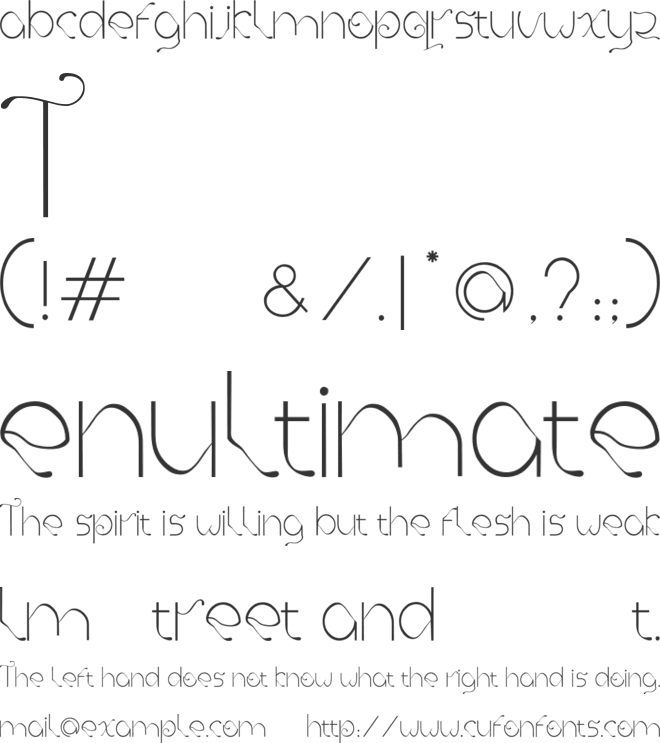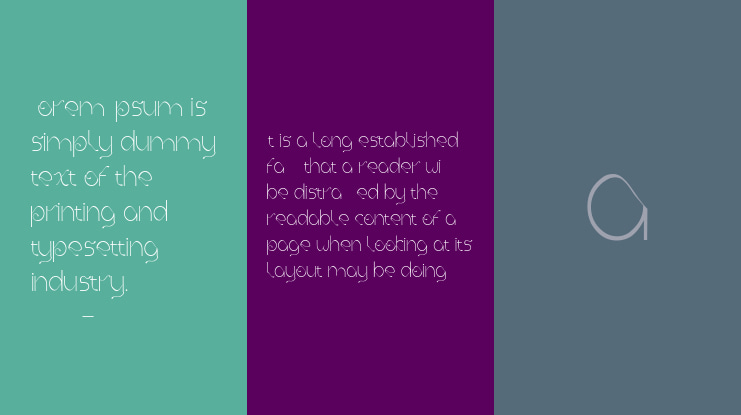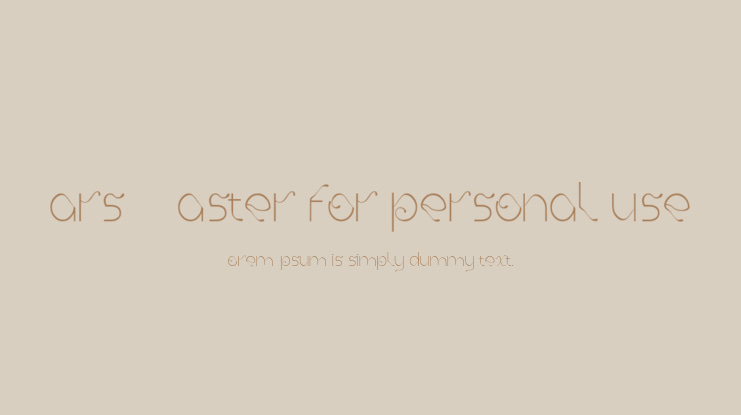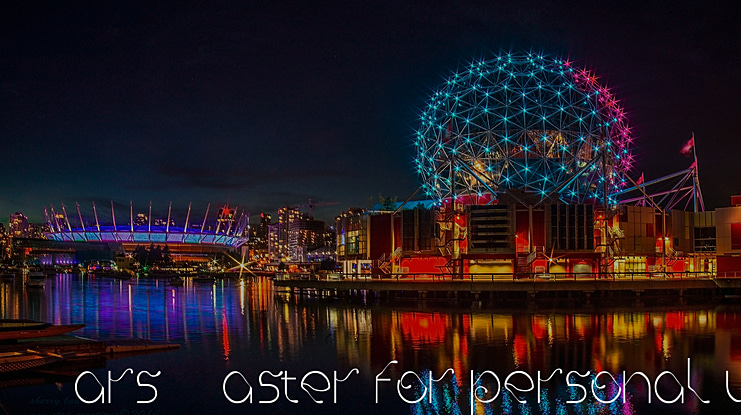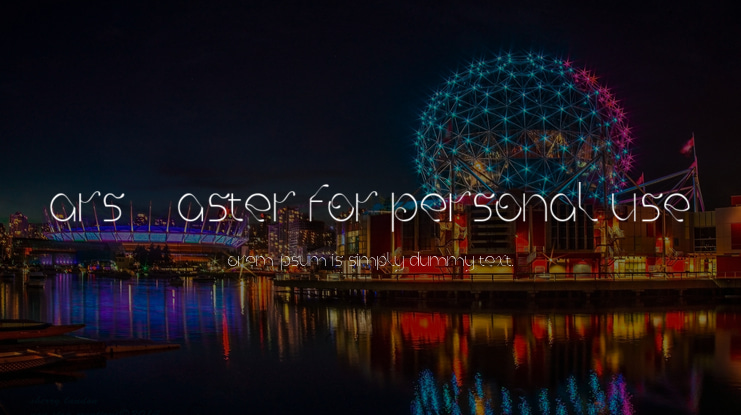
Stars Master for personal use Font
Stars Master is a modern Serif typeface with light weight anatomy. Created for using for web design, but also very well for fashion magazine tittles, luxury perfumes and cosmetics, logotypes, outdoor advertising and other design projects.